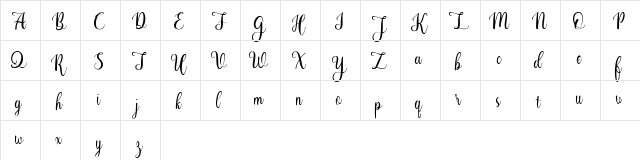
Harsley script
| Style | script |
| Foundry | Sizimon |
| Designer | Faisal Tanjung |
Design Context for Harsley Typeface
Harsley flows with the natural rhythm of handwritten lettering, making it ideal for designs that call for warmth and personal expression.